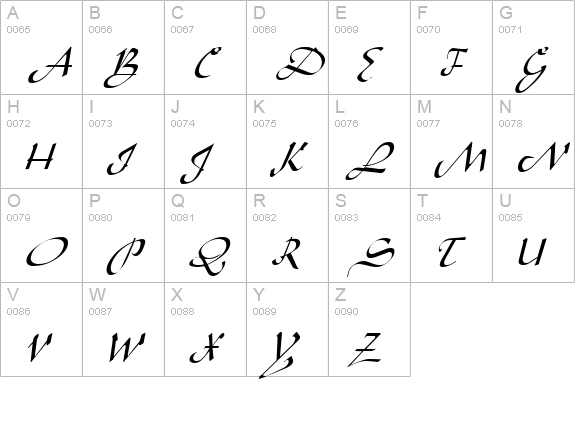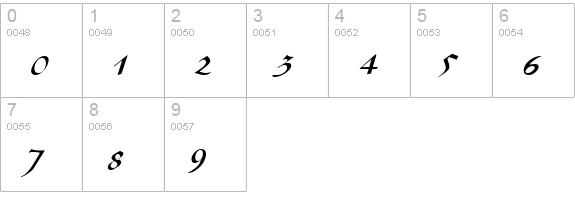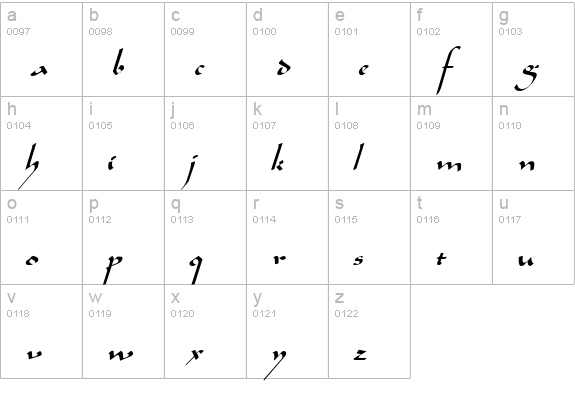
Aladdin Italic Font Details
Aladdin Italic is a distinctive, italic variant in the Aladdin typeface family \xE2\x80\x94 well suited to design and typography projects.
Aladdin Italic font is a whimsical and enchanting typeface that will transport your designs to a magical realm. With its elegant and flowing curves, this font exudes a sense of mystery and adventure, perfect for adding a touch of Arabian Nights flair to your projects. Best of all, Aladdin Italic font is available for free download at FontsMarket.com. So go ahead and add a dash of magic to your designs with this captivating typeface today!